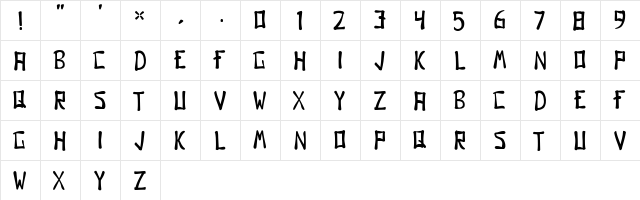
Gomo Regular
Design Context for Gomo Typeface
Gomo is a composed and adaptable typeface that performs quietly and consistently across a wide range of design contexts.